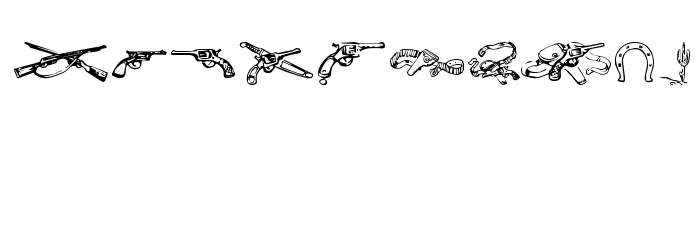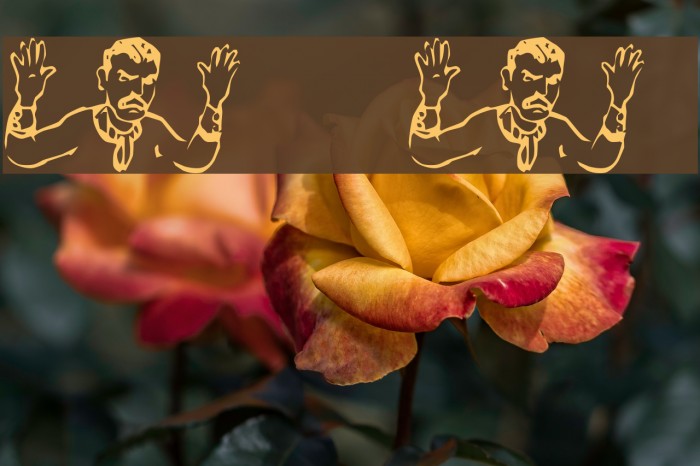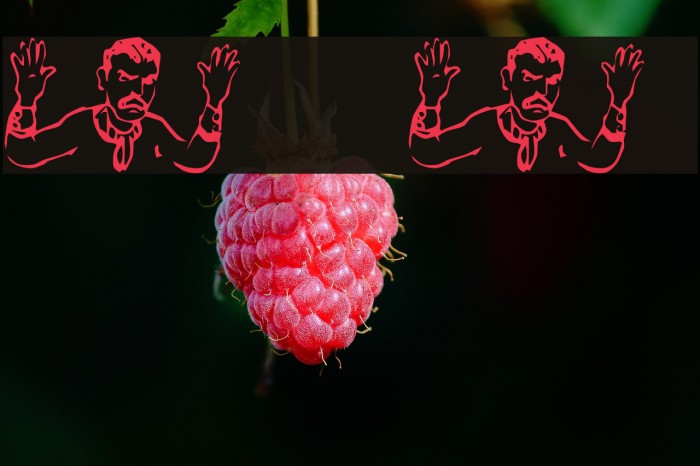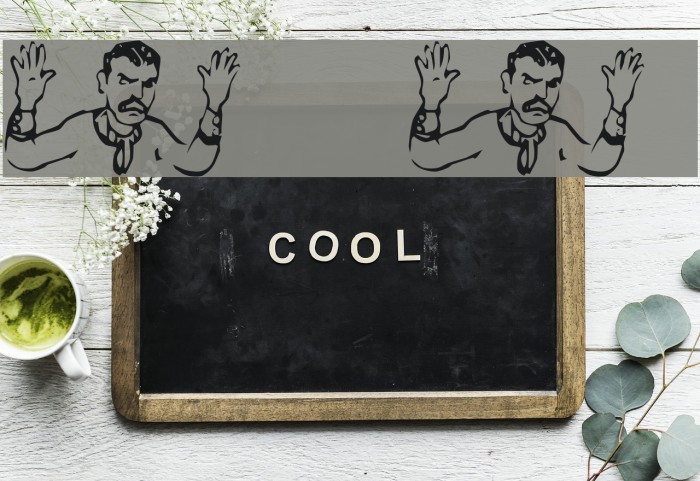
Cowboy Clips Font
This is not a traditional font but rather a collection of cowboy-themed clip art illustrations. Each character is represented by a unique drawing depicting various cowboy-related scenes and objects, such as cowboys in different poses, horses, hats, guns, and other Western motifs. The style is playful and illustrative, capturing the essence of the Wild West with a whimsical touch. These illustrations are detailed and expressive, making them suitable for creative projects that require a Western or cowboy theme.
A collection of cowboy-themed clip art illustrations, not a traditional font.
- Proposed Projects: Ideal for Western-themed posters, party invitations, educational materials about the Wild West, or any creative project needing a cowboy flair.
- Use Case: Decorative elements for creative projects, not suitable for text.